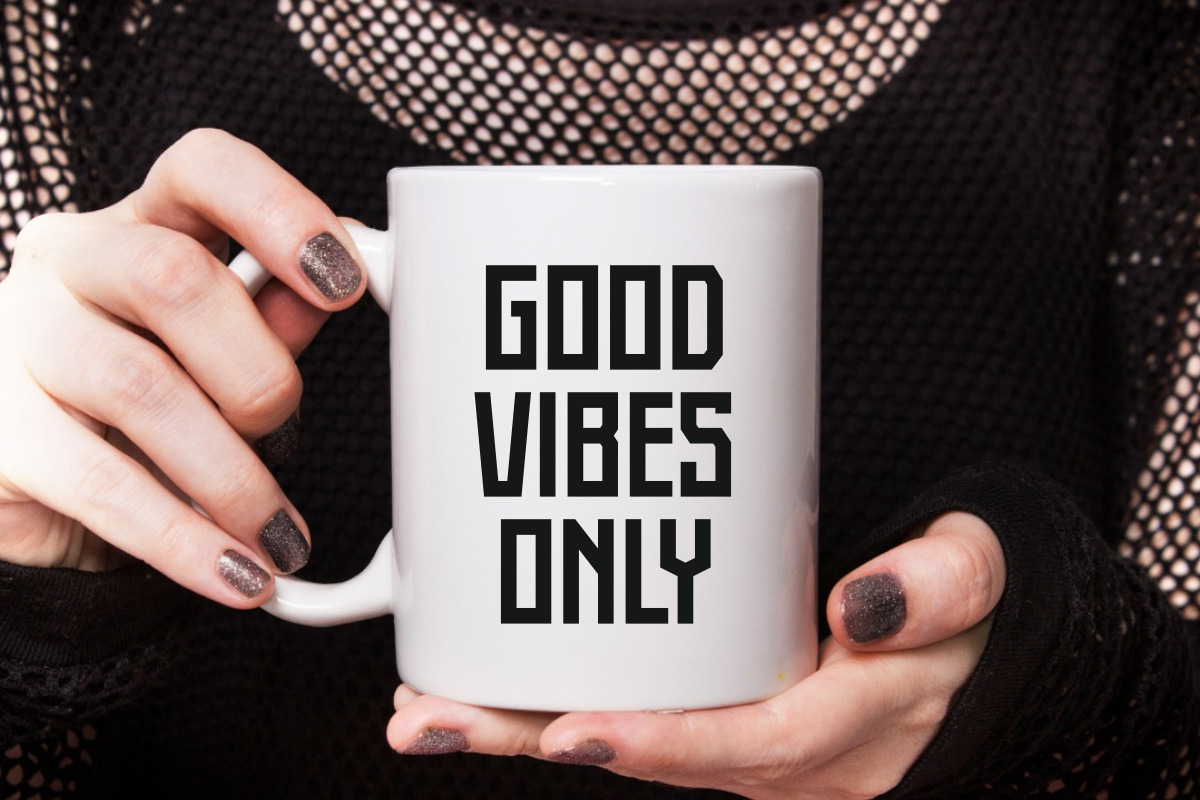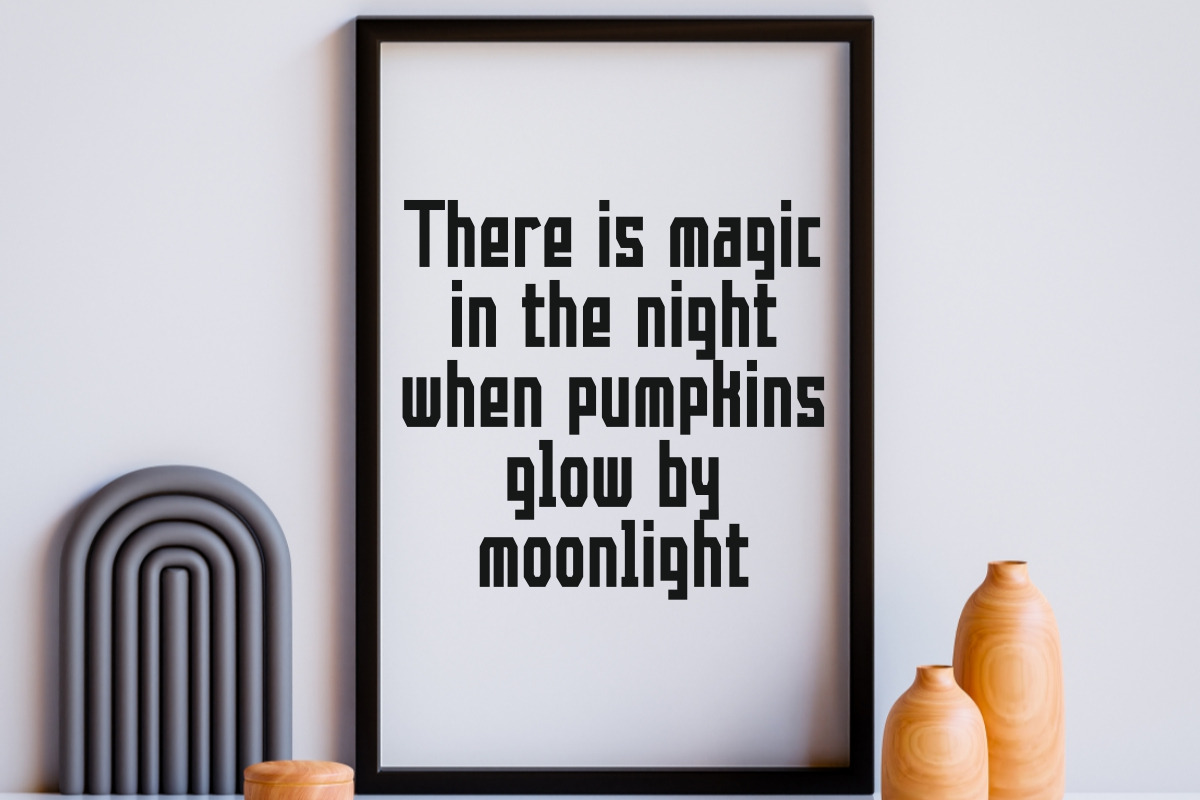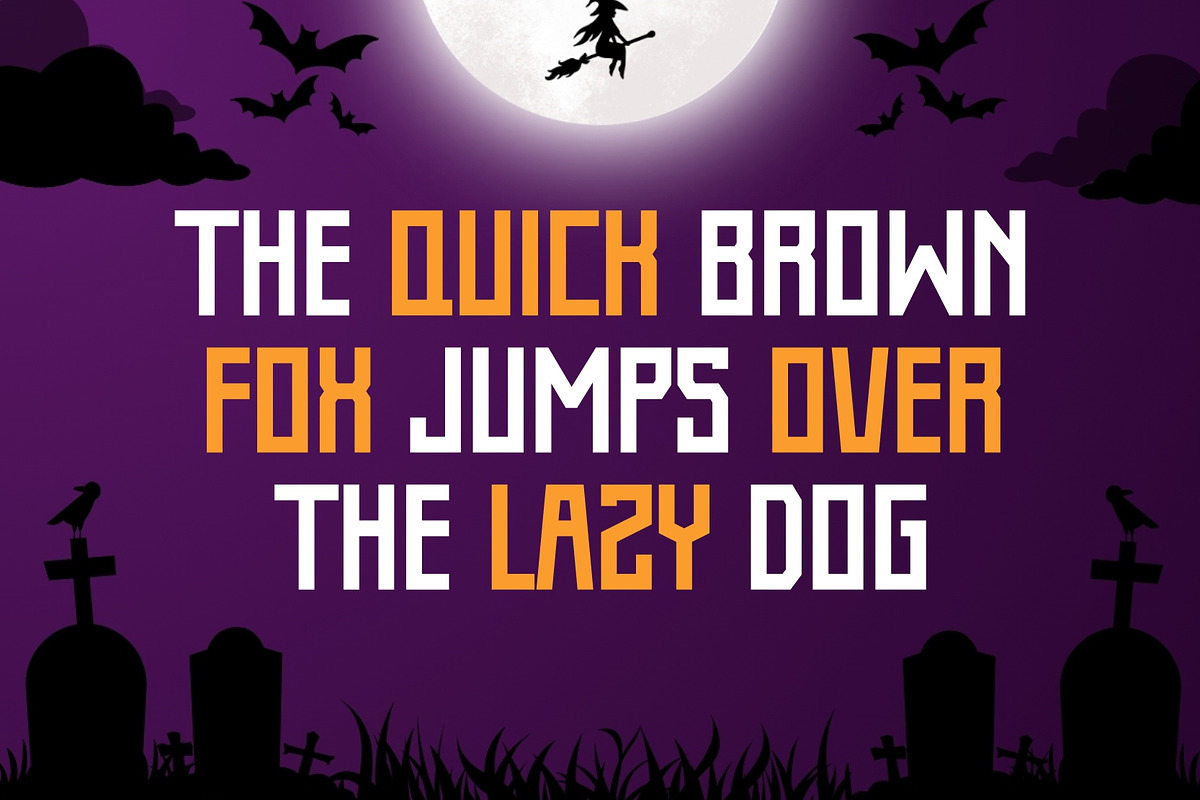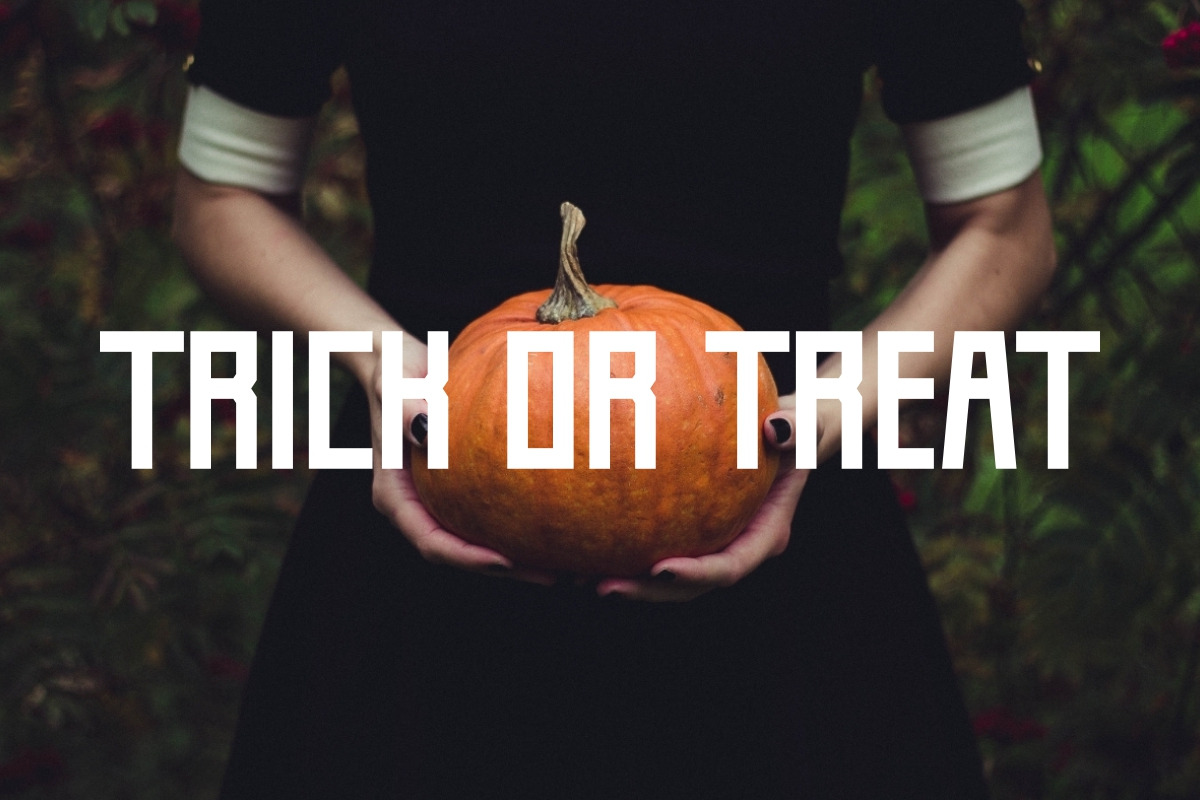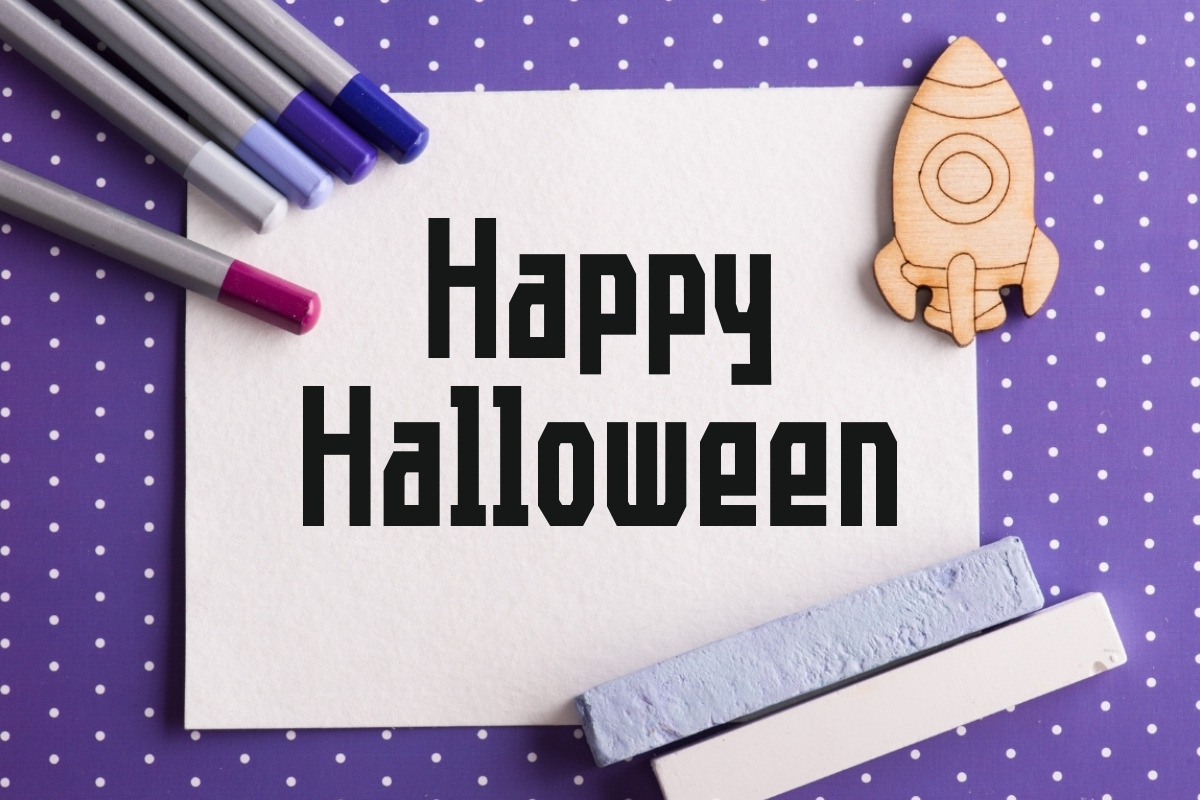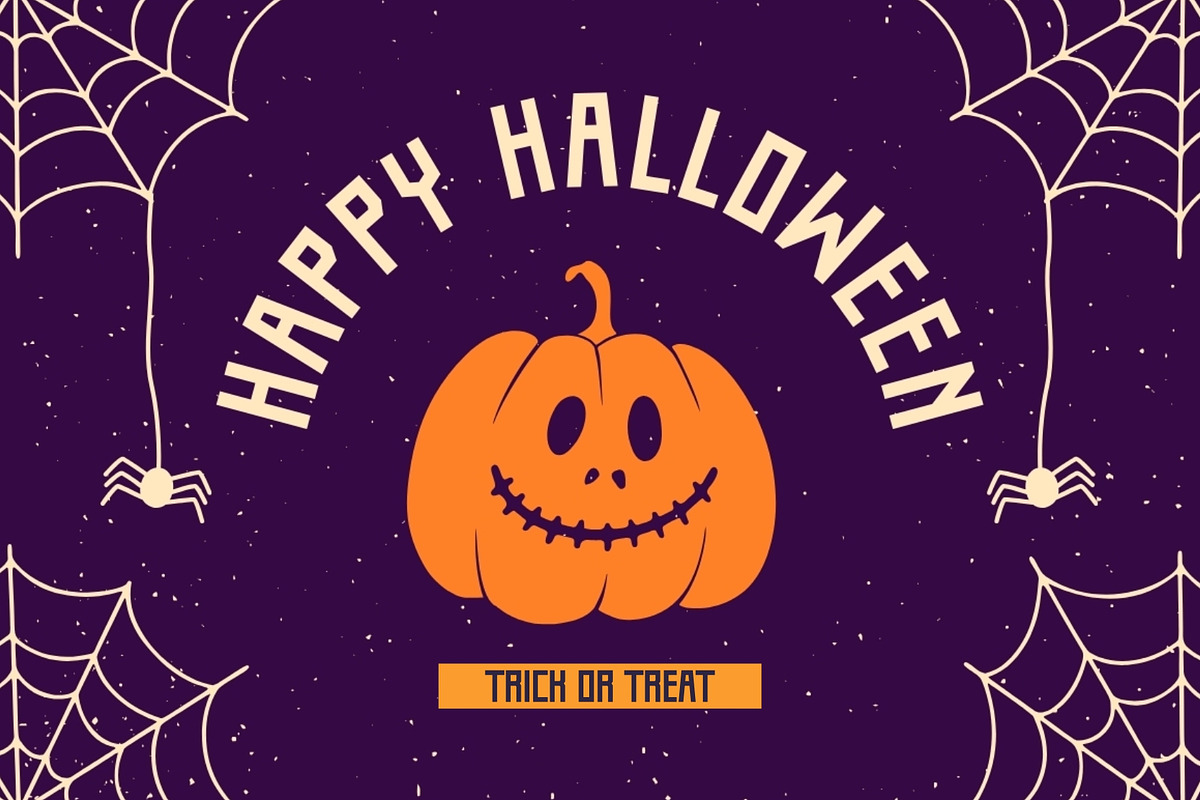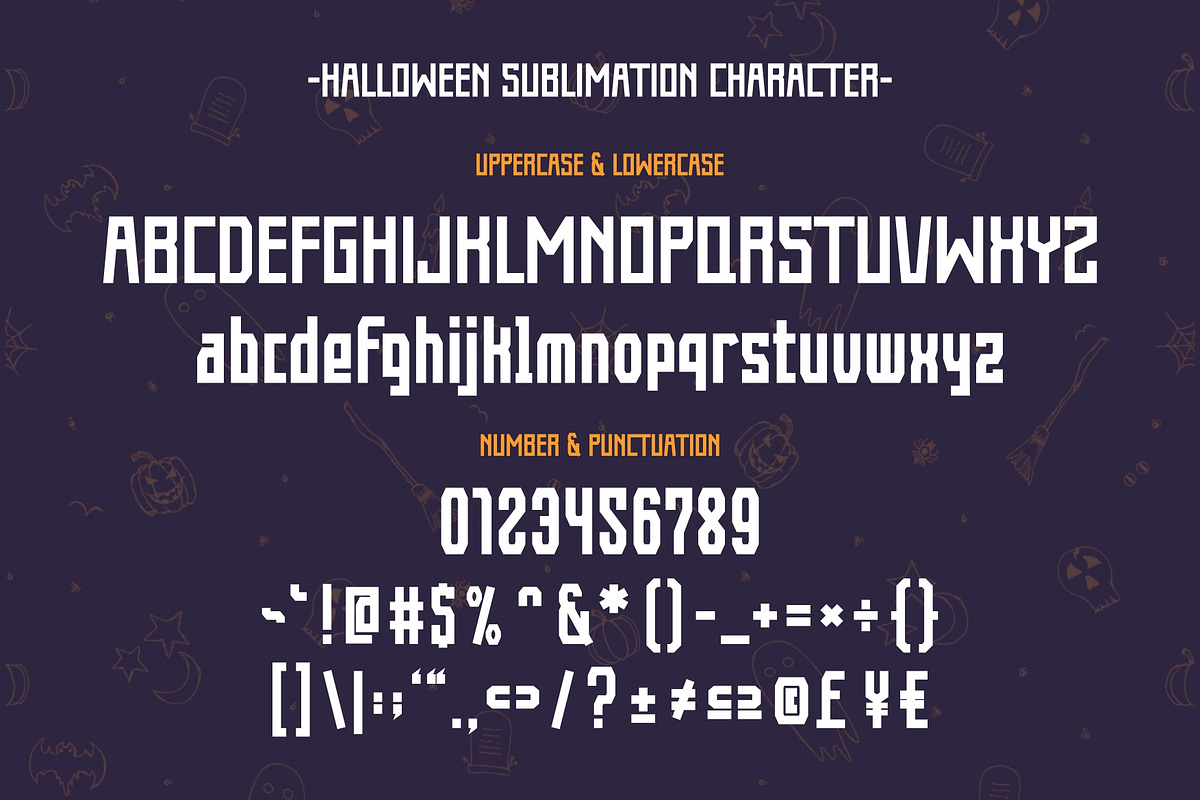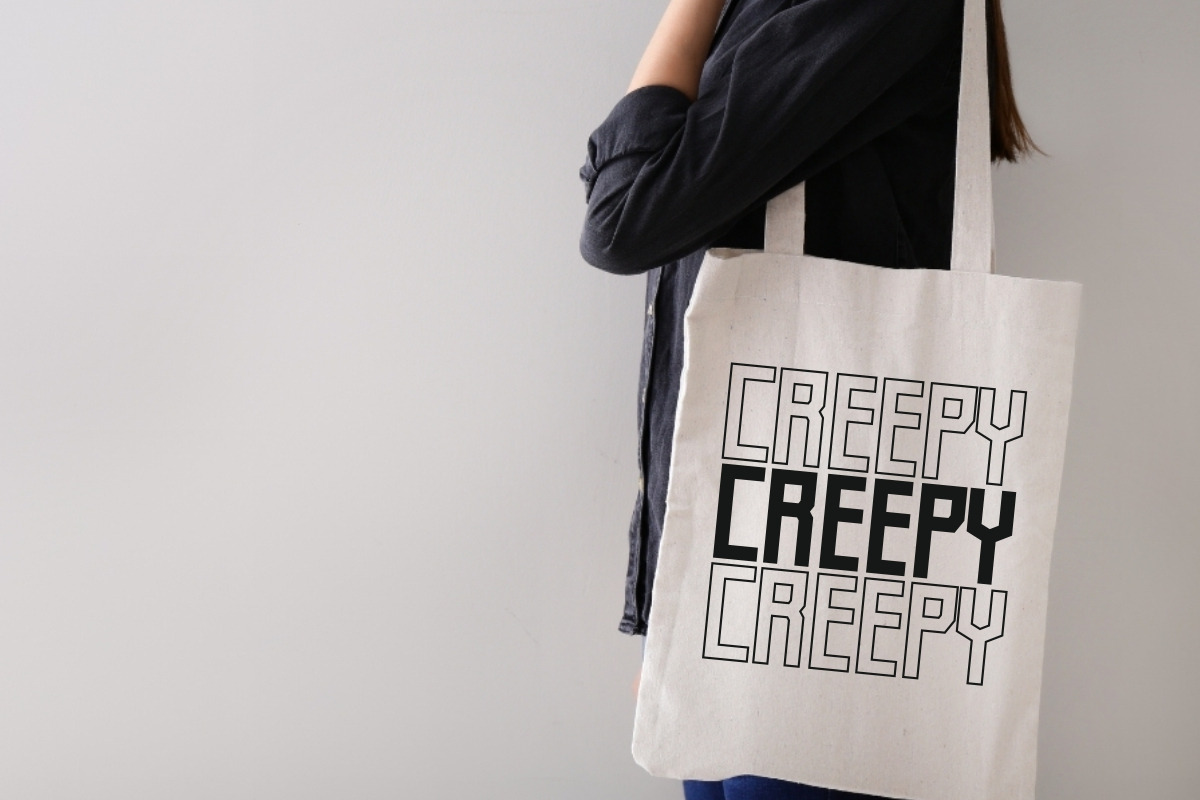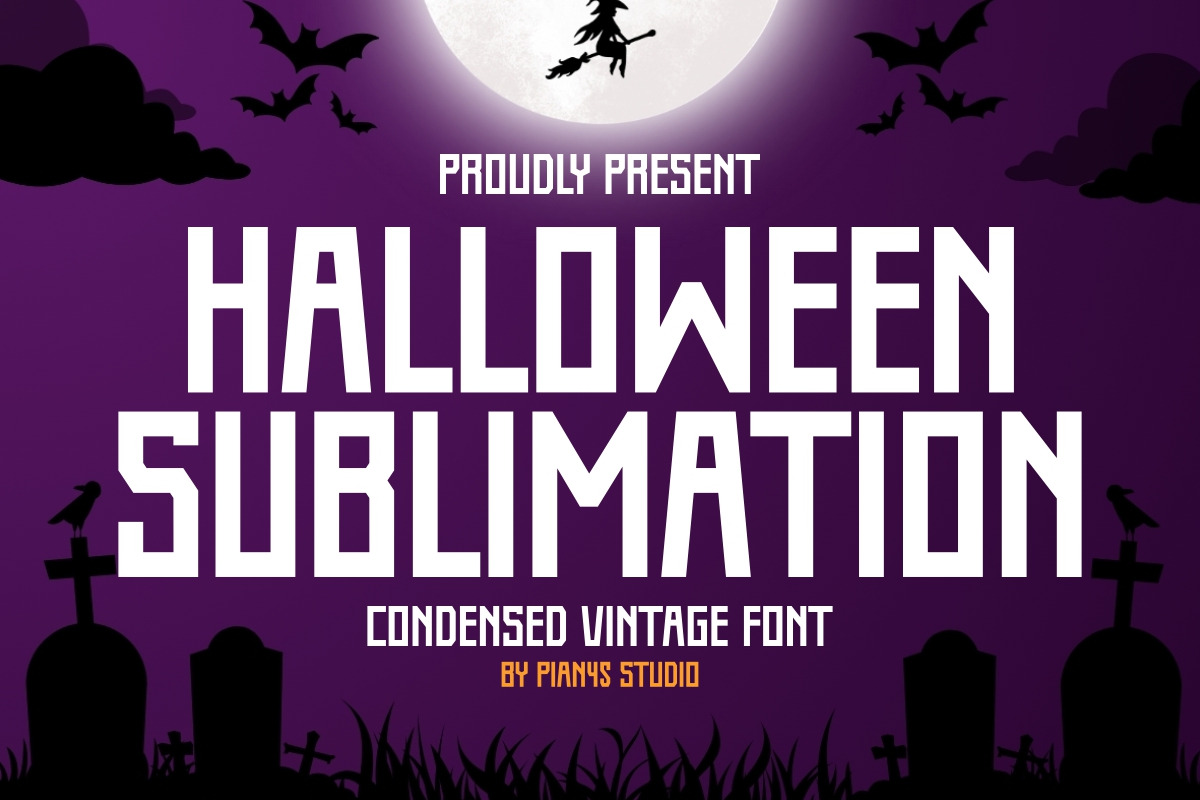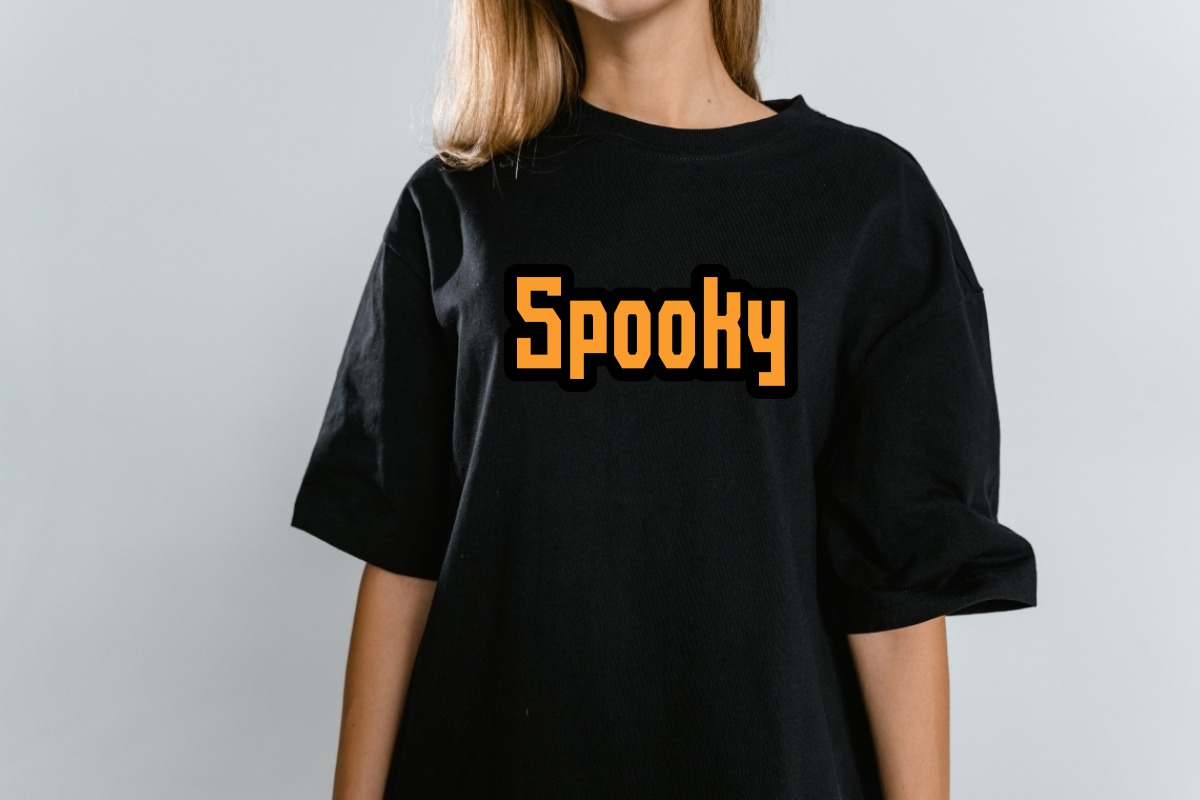
Halloween Sublimation - Vintage Font
Halloween Sublimation is a vintage and bold condensed sans serif font. This font brings a unique blend of vintage charm and modern clarity to any project. Perfect for children's books, invitations, logo branding, quotes, posters, backgrounds, movie titles, t-shirts, mugs, tote bags, pillows, frames and various packaging products.